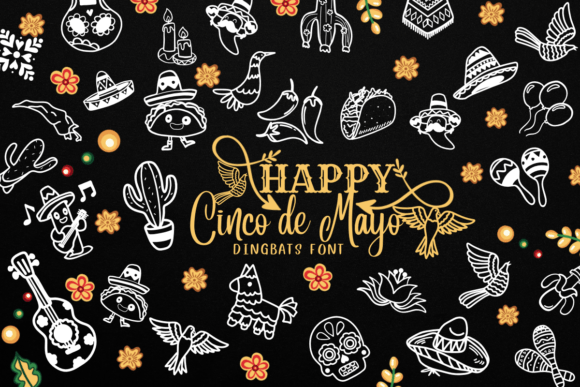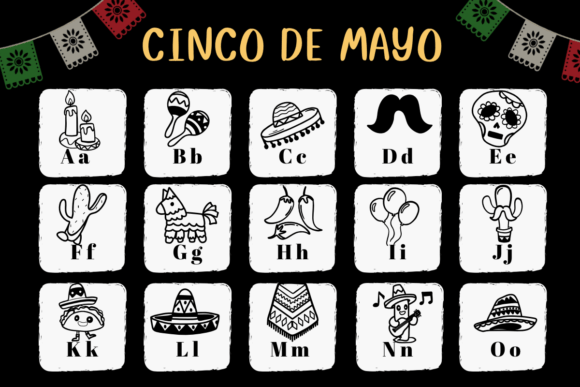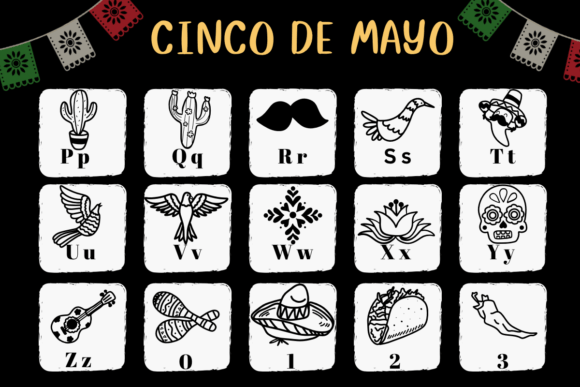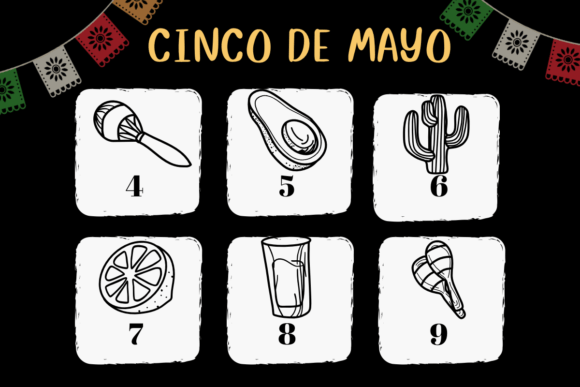
Cinco De Mayo Font
About the Cinco De Mayo Font
Unleash your creativity with Cinco De Mayo Font, a versatile font perfect for a wide range of applications. The Cinco De Mayo Font is a playful dingbat font that features various elements related to the Mexican holiday Cinco de Mayo. It includes festive symbols like sombreros, maracas, piñatas, tacos, and margaritas. Each character in the font represents a different, fun icon, perfect for adding a festive touch to your designs and celebrations.
Cinco De Mayo Font Usage Examples